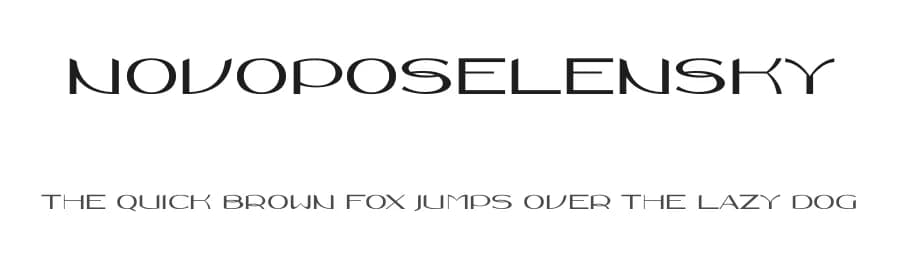
About Novoposelensky Font
Novoposelensky is a sans-serif font designed by Sasha Pavljenko. It includes 88 glyphs, a regular weight, OTF (CFF) format, and 177 languages. Novoposelensky is free to download; check the license details on this page before commercial use. Sans-serif fonts like Novoposelensky work best for clean body text, user interfaces, branding, and modern layouts.
Novoposelensky Font is a versatile sans-serif font that works for both headings and body text. Pair it with a contrasting serif or slab serif font to add visual interest and a clear distinction between titles and body copy.
Novoposelensky Font
Novoposelensky Font is a sans serif typeface by Sasha Pavljenko, ideal for logos, invitations, branding, and creative projects.